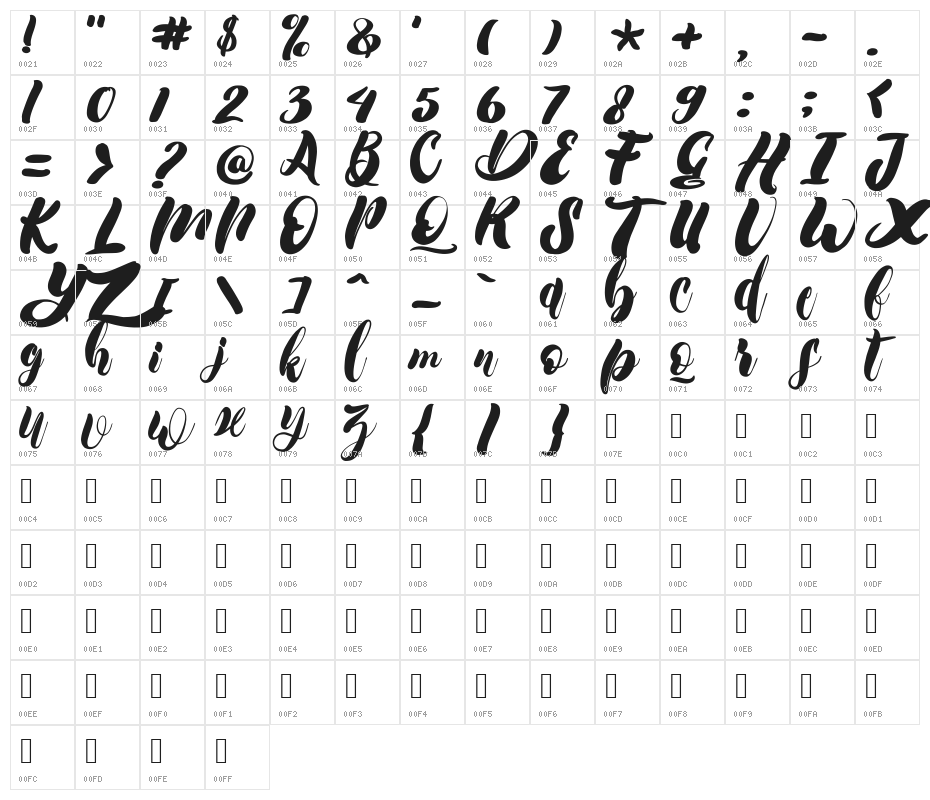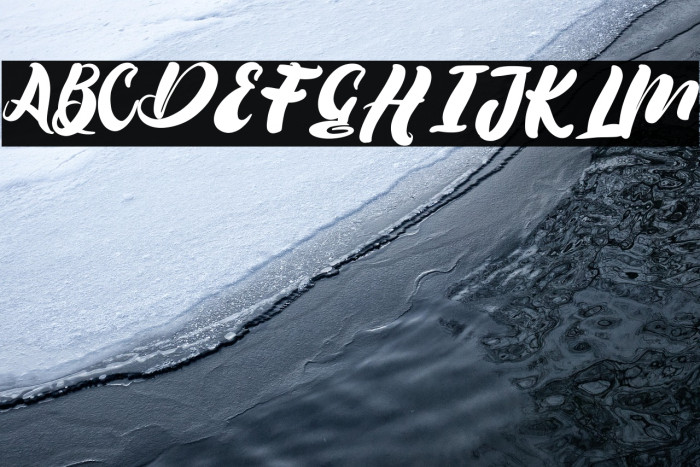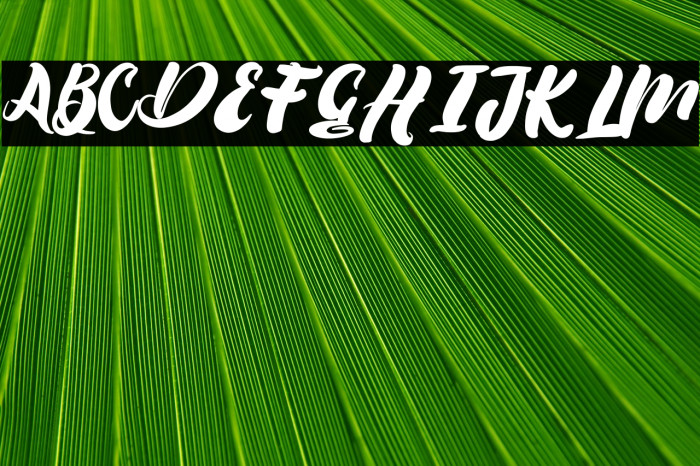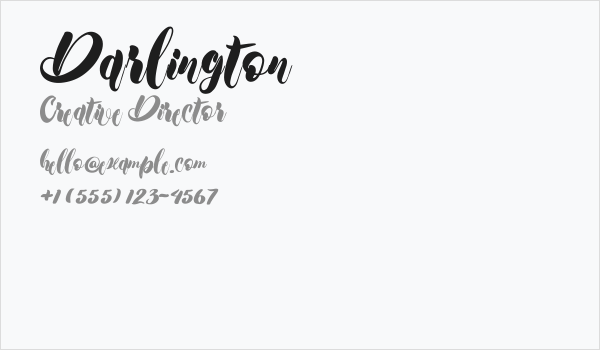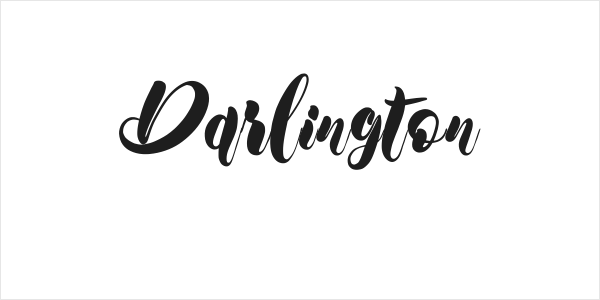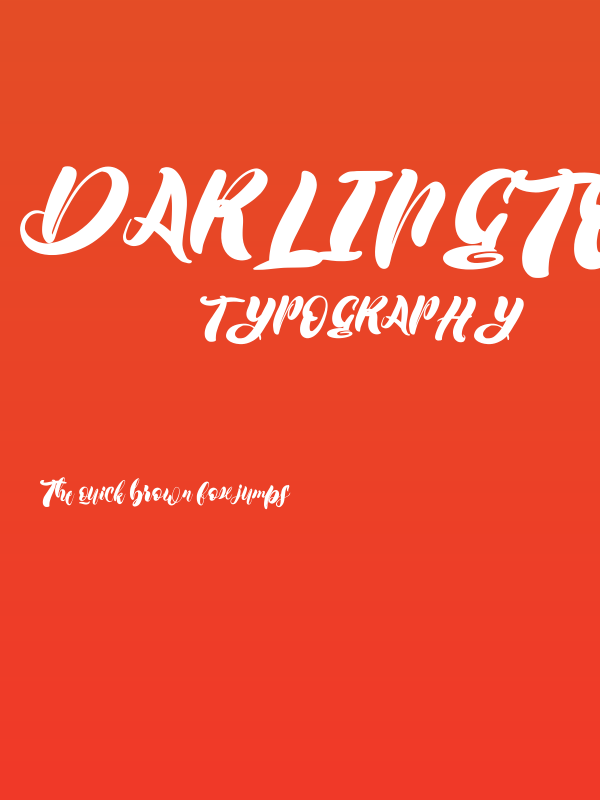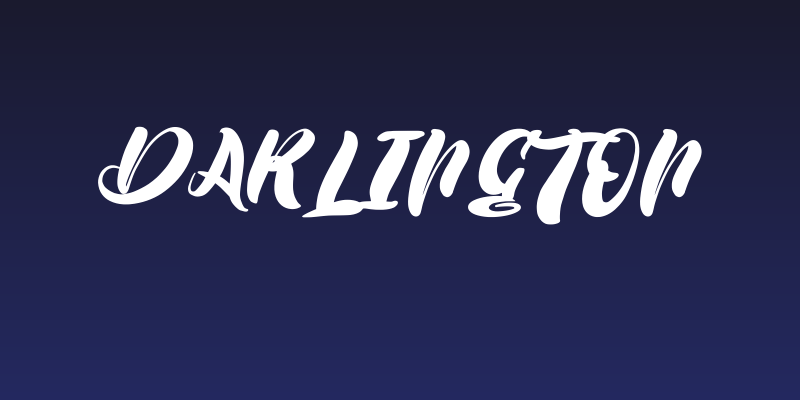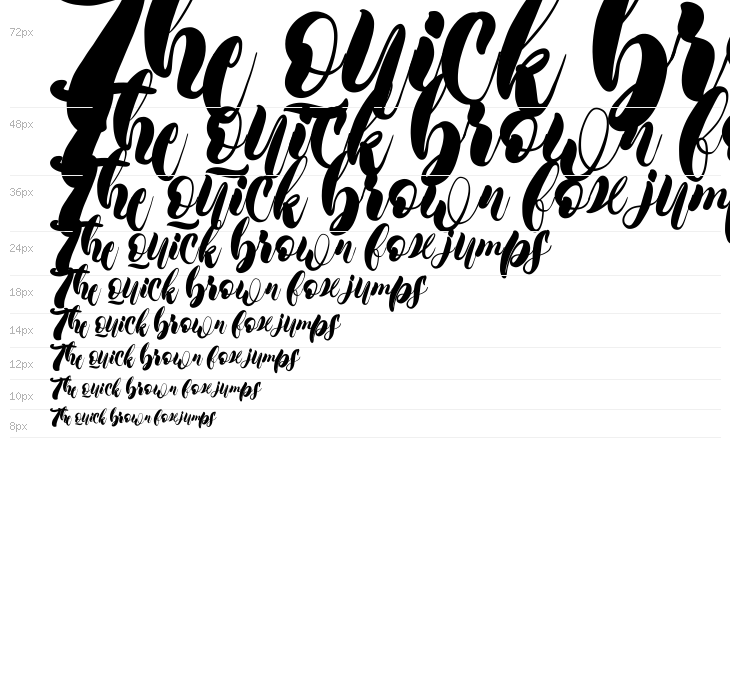
Darlington Font
Darlington Description
This font features a bold and expressive script style, characterized by its flowing, cursive letterforms. The uppercase letters are particularly striking, with dramatic flourishes and loops that add a sense of movement and elegance. The lowercase letters maintain a consistent style, with smooth curves and a slightly slanted orientation that enhances readability. The numbers and special characters are equally bold, ensuring they stand out in any design. This font's high contrast between thick and thin strokes gives it a dynamic and modern feel, making it suitable for a variety of creative applications.
| Proposed Projects | Ideal for branding, invitations, greeting cards, and artistic projects that require a touch of elegance and flair. |